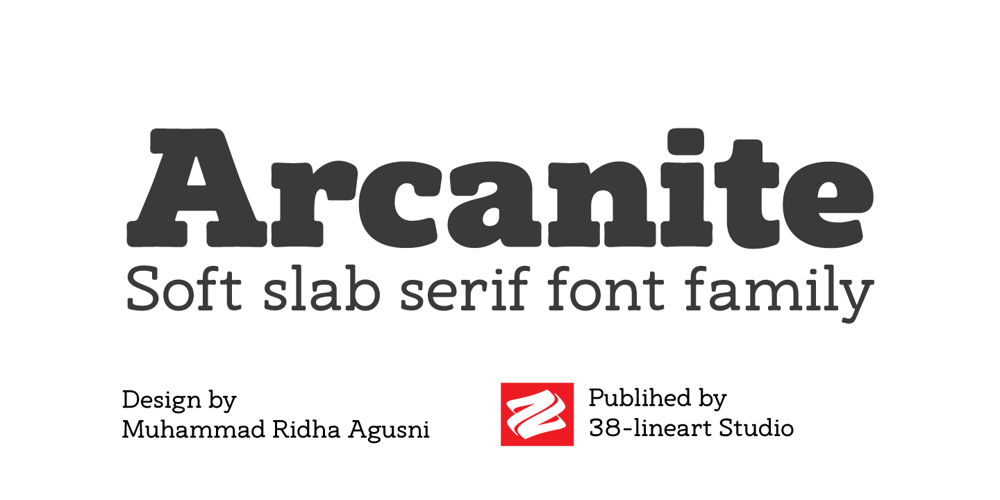
Arcanite Slab Font Family was designed by Muhammad Ridha Agusni and published by 38-lineart. Arcanite Slab contains 18 styles and family package options. Introducing Arcanite, a sophisticated slab serif font family that blends robust slab serifs with soft, refined edges, perfect for both text and display. Offering 18 fonts across 9 weights in regular and italic styles, Arcanite ensures versatility for any design context, from headlines to body text. Key features include its unique soft slab serifs, wide-ranging applicability from editorial to branding, and a comprehensive family providing a rich typographic palette. Designed for those seeking a harmonious balance of classic traits and modern sensibilities, Arcanite enhances readability and adds distinct character to your projects. Transform your typographic designs with Arcanite, the perfect fusion of strength and elegance.